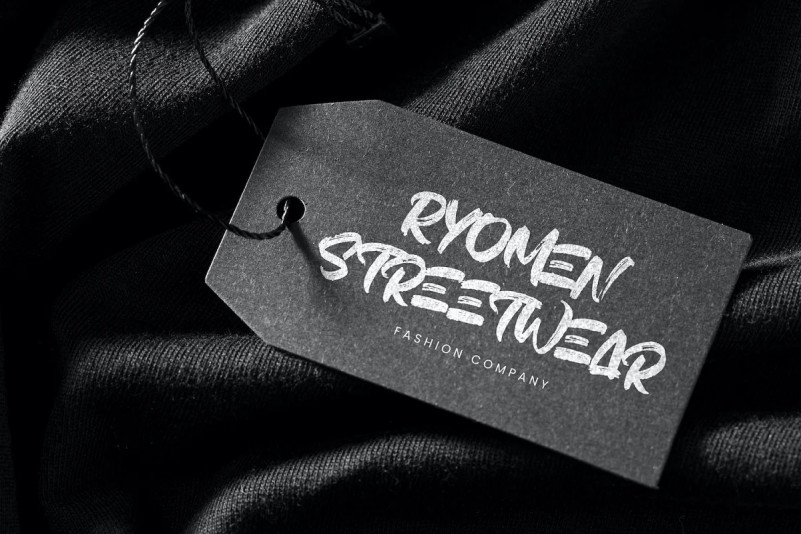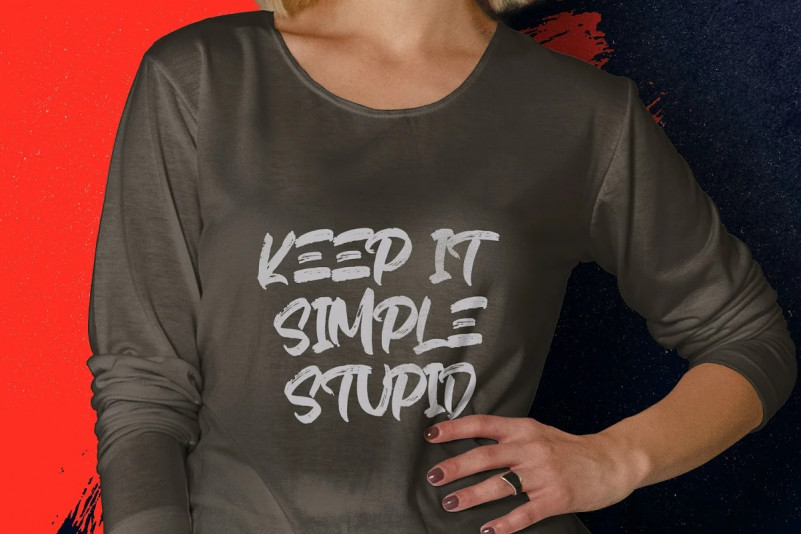
Hiruzen Exists Font
Hiruzen Exists Brush Font
This is a unique brush with rough edge effect. It’s designed and shared by StringLabs. It’s a textured handbrush font. Get inspired by its unique and beautiful style and add it to your favorite designs!